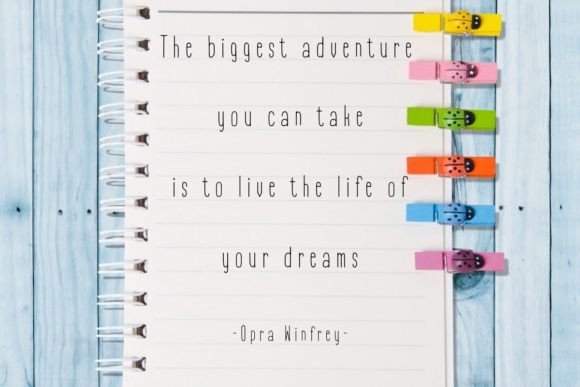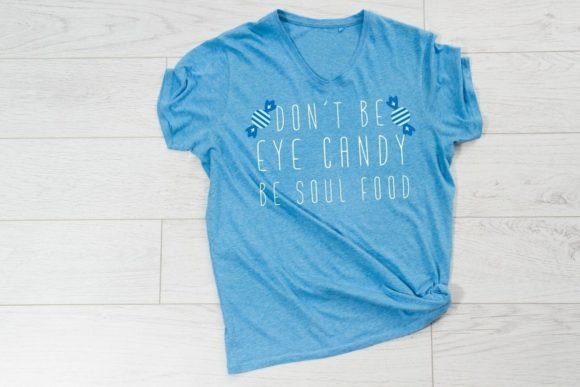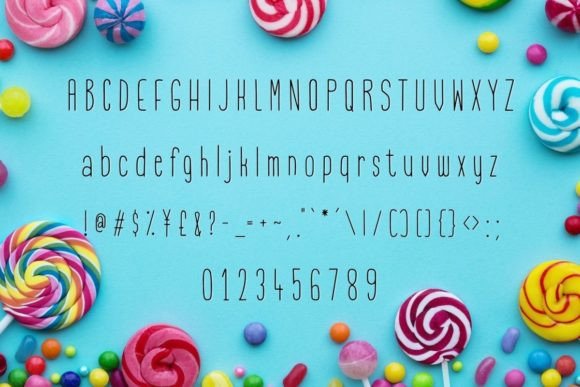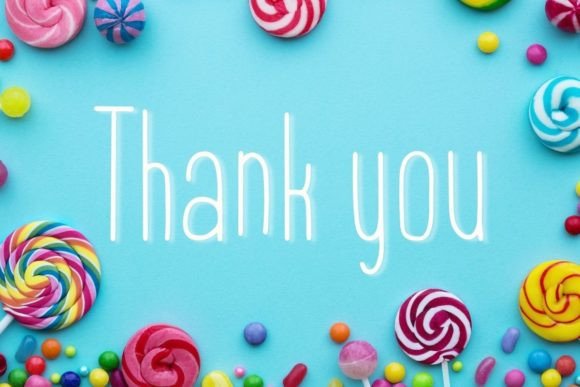
Candy Font: The Sweetest Addition to Your Design Projects
Are you looking for a font that’s as sweet as it is versatile? Look no further than Candy Font, a cute and skinny handwritten font that’s perfect for a wide range of design projects. With its light and airy characters, Candy Font is ideal for designers and crafters who want to add a touch of whimsy and fun to their work.
The Characteristics of Candy Font
Candy Font is a handwritten font that’s characterized by its slender and delicate strokes. The lightness of its characters makes it suitable for a variety of design projects, from kids’ crafts to professional designs. The font’s casual and informal feel makes it perfect for designs that want to convey a sense of friendliness and approachability.
What Makes Candy Font So Versatile?
Candy Font’s versatility is one of its standout features. Its light and airy characters make it suitable for a wide range of design projects, including:
- Kids’ crafts: Candy Font is perfect for kids’ crafts, such as making cards, posters, and other creative projects.
- Posters: The font’s bold and playful feel makes it ideal for creating eye-catching posters for events, promotions, and more.
- Web graphics: Candy Font can be used to create a variety of web graphics, including social media graphics, blog headers, and more.
- Sublimation projects: The font’s light and airy feel makes it perfect for sublimation projects, such as custom t-shirts, mugs, and more.
- Cards: Candy Font is ideal for creating custom cards for special occasions, such as birthdays, holidays, and more.
Why Choose Candy Font?
There are many reasons why designers and crafters choose Candy Font for their projects. Here are just a few:
- Ease of use: Candy Font is easy to read and use, making it perfect for designs that need to be clear and concise.
- Flexibility: The font’s light and airy feel makes it suitable for a wide range of design projects, from formal to informal.
- Cuteness: Candy Font is a super cute font that’s sure to add a touch of whimsy and fun to any design project.
- Organization: The font’s slender strokes make it perfect for note-taking and organization, without being too formal.
Tips for Using Candy Font
Here are a few tips for using Candy Font in your design projects:
- Pair it with bold fonts: Candy Font pairs well with bold fonts, which can help to create a nice contrast and add visual interest to your design.
- Use it for headings: The font’s bold and playful feel makes it perfect for headings and titles.
- Add some color: Candy Font looks great with bright and bold colors, which can help to add a touch of whimsy and fun to your design.
Candy Font is a versatile and adorable font that’s perfect for designers and crafters who want to add a touch of whimsy and fun to their work. With its light and airy characters, Candy Font is suitable for a wide range of design projects, from kids’ crafts to professional designs. Whether you’re looking for a font for note-taking, posters, web graphics, or more, Candy Font is a great choice. So why not give it a try and see what sweet creations you can come up with?